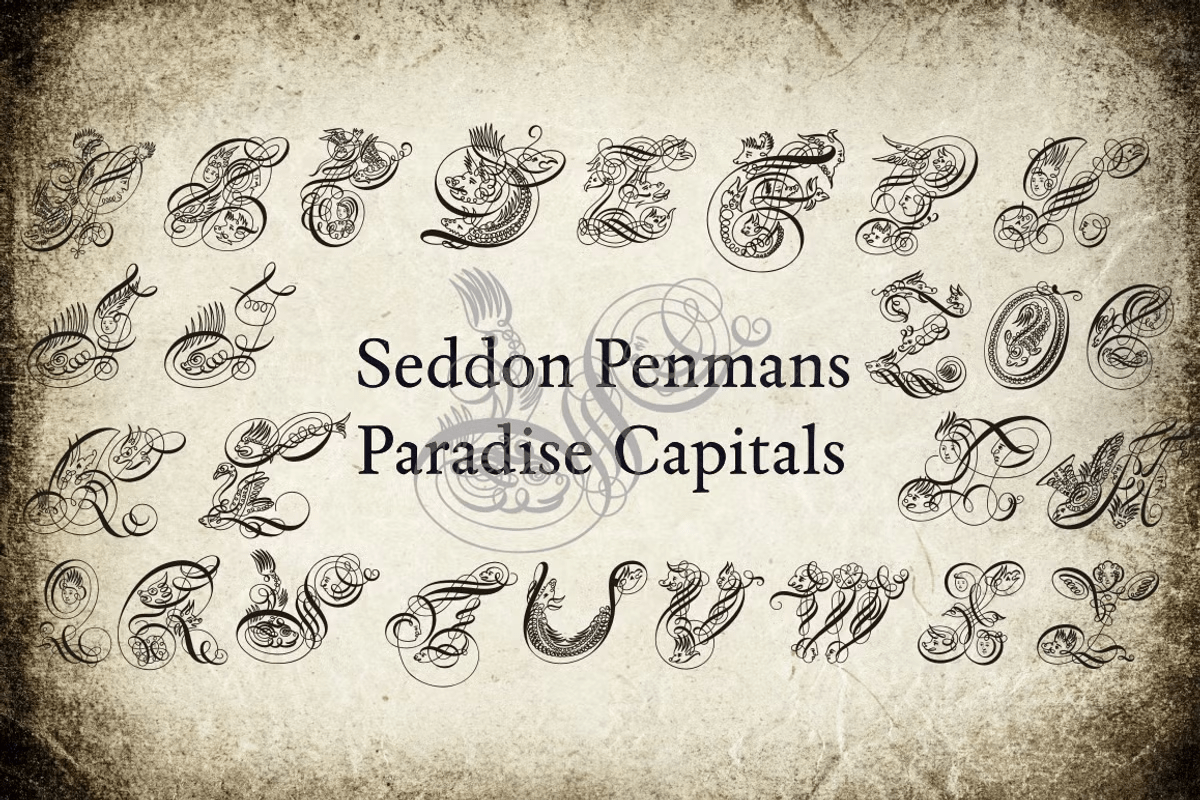
HomeFont BrosHistoricalSeddon Penmans Paradise Capitals HistoricalSpecial EffectScripts: FormalWacky Seddon Penmans Paradise Capitals FacebookXPinterestWhatsApp 1 of 1 About Seddon Penmans Paradise Capitals is a highly decorative display font great for posters and headline use  DOWNLOAD ON FONT BROSThis font is sold and delivered by Font Bros. Font Canyon may earn a commission if you buy through this link. People also explored Comply Slab Font Ultimate Victory Font Christmas Offering Font Loosie Goosie Retrofest Font Waterfall Font Harlean Font Branch Font Goodchild 247 0 TagsSeddon Penmans Paradise Capitals FontWVYECA6FKI Previous articleCoconut RumNext articleCeltic Lion LEAVE A REPLY Cancel reply Comment: Please enter your comment! Name:* Please enter your name here Email:* You have entered an incorrect email address! Please enter your email address here Website: Save my name, email, and website in this browser for the next time I comment. Personal Use Free Just Smile Personal Use Free Read more about this font Predators Personal Use Free Read more about this font Pouline Personal Use Free Read more about this font Sileighty Personal Use Free Read more about this font BLOG Top 10 Handwritten Fonts That Elevate Your Designs Top 10 Handwritten Fonts That Will Elevate Your Designs Handwritten fonts bring a warm, personal touch to every creative project. Whether you're designing logos, invitations,... How to Install and Use Fonts on Windows, macOS, and Web Projects The 10 Best Handwriting Fonts to Add Personality to Your Designs Using Fonts in Digital Marketing: Tips to Strengthen Your Brand Identity